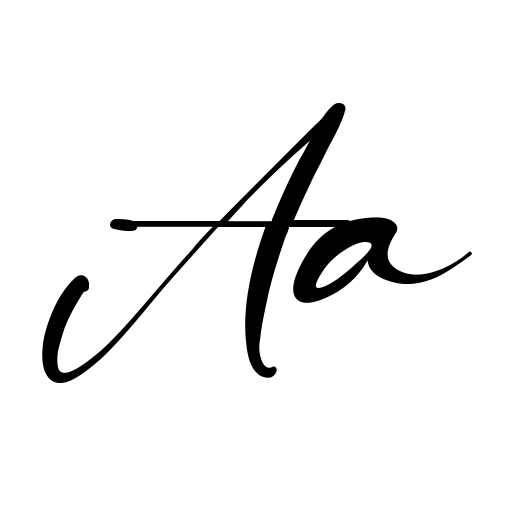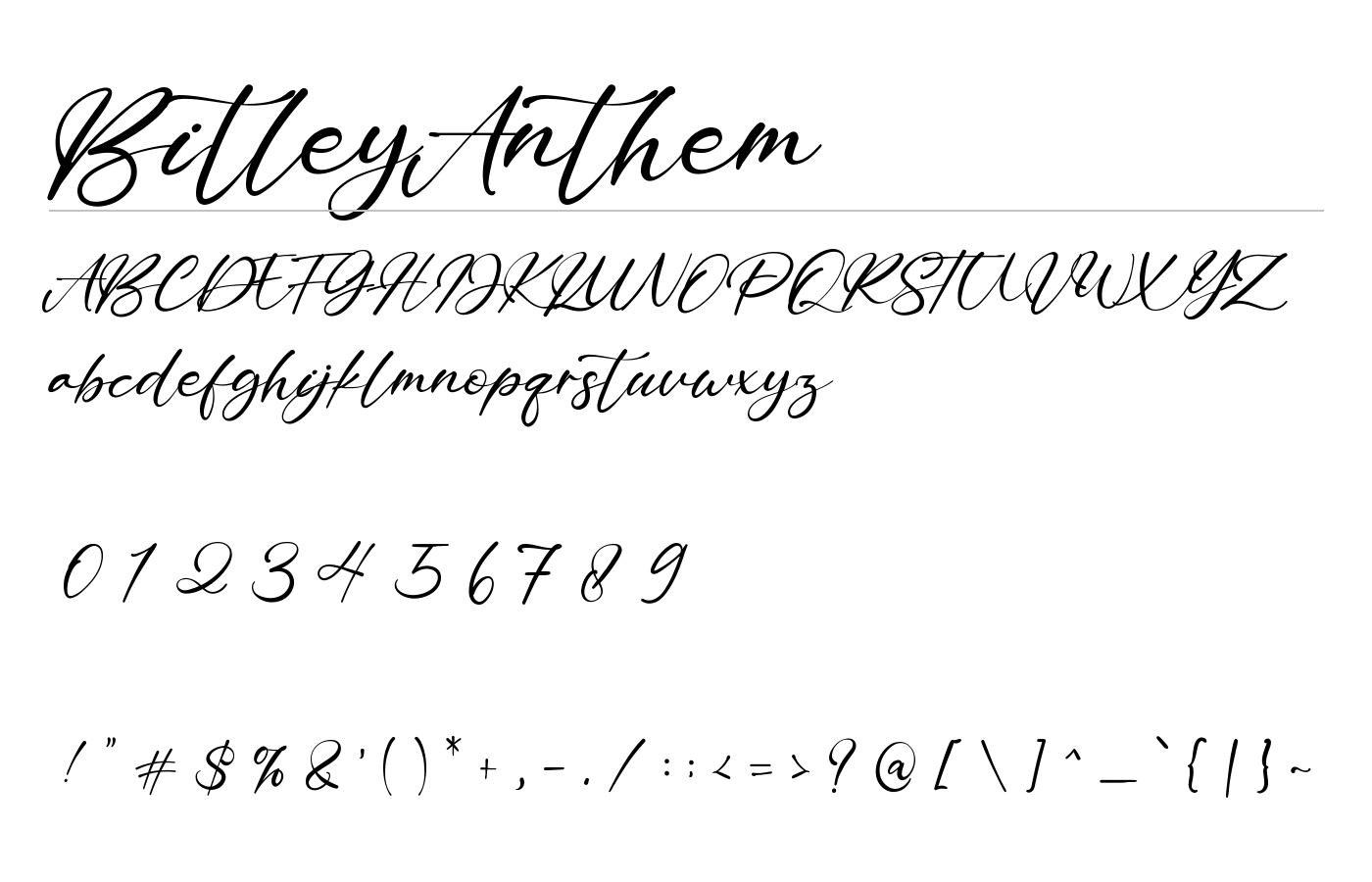
BitleyAnthem is an elegant handwritten script font characterized by smooth, flowing strokes and a natural, slightly casual feel. Its slender, slightly condensed letterforms and varied stroke widths give it a stylish yet approachable personality, making it ideal for branding, invitations, and other creative designs that seek a personal, sophisticated touch. This font works beautifully in headlines and logos where a refined but friendly appearance is desired.
BitleyAnthem Font
About BitleyAnthem Font
| Font family | BitleyAnthem Font |